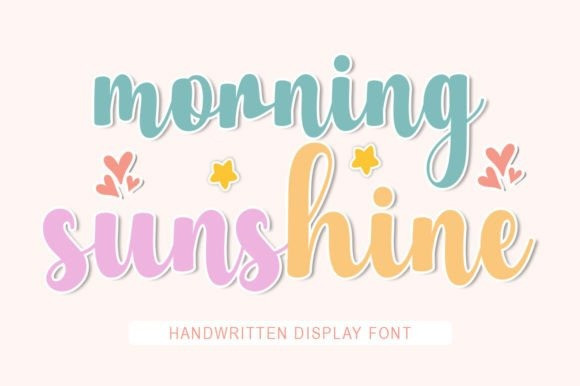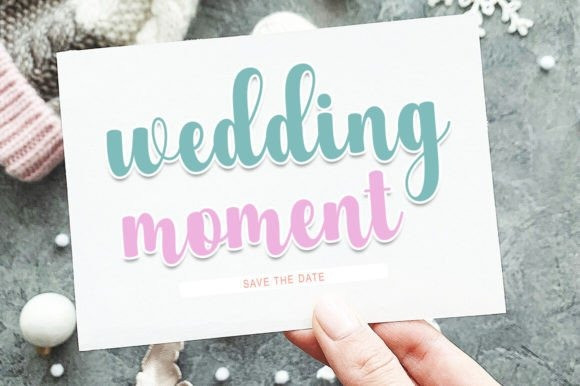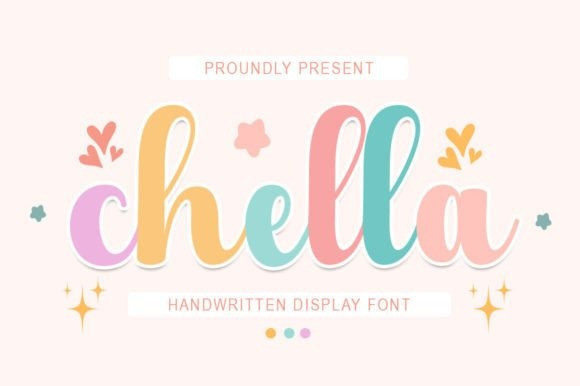
Chella Script Font
Chella Script Font is a delightful display font brimming with charm and whimsy. Its playful curves and friendly demeanor evoke a sense of camaraderie and joy. Perfect for children’s books, party invitations, or any design project that seeks to radiate warmth and cheerfulness.